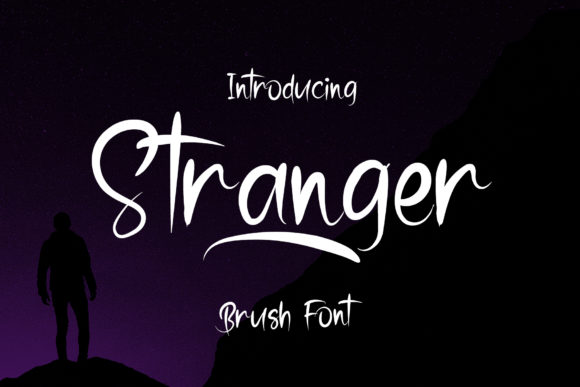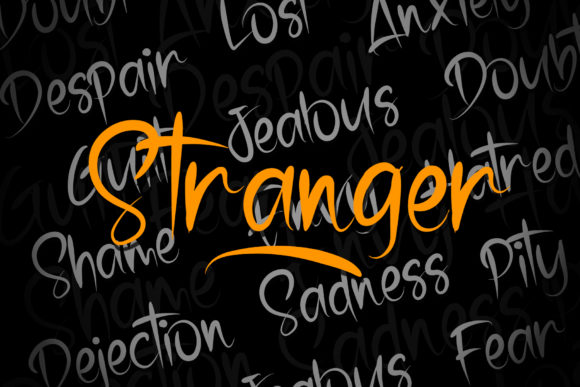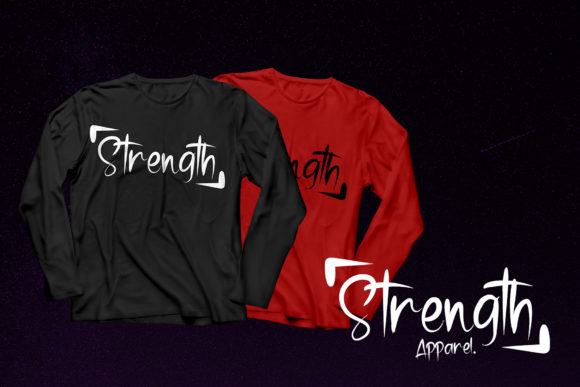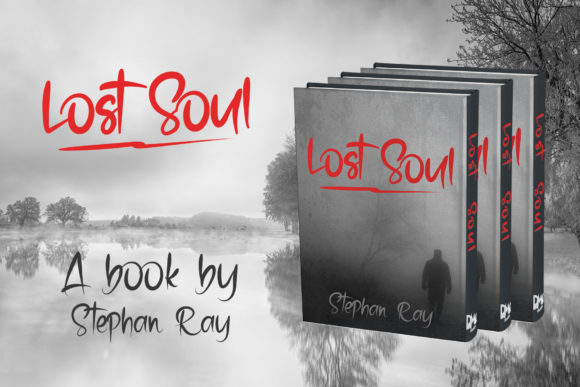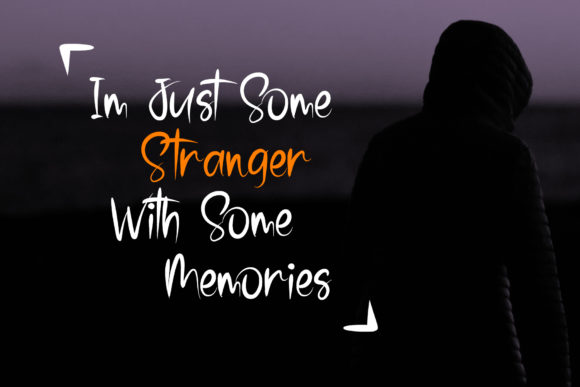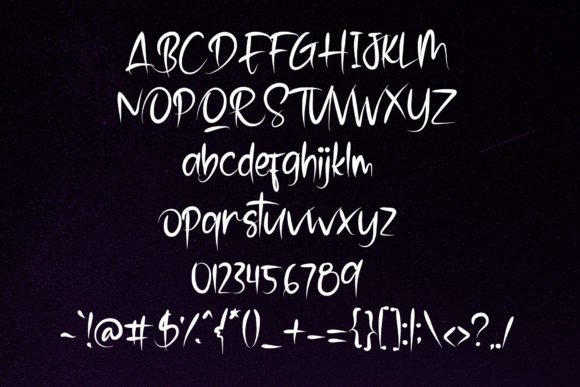
Stranger Font
About Stranger Font
Stranger is a weirdly unique handwritten font. The irregular strokes of this font will add a unique twist to any design project.